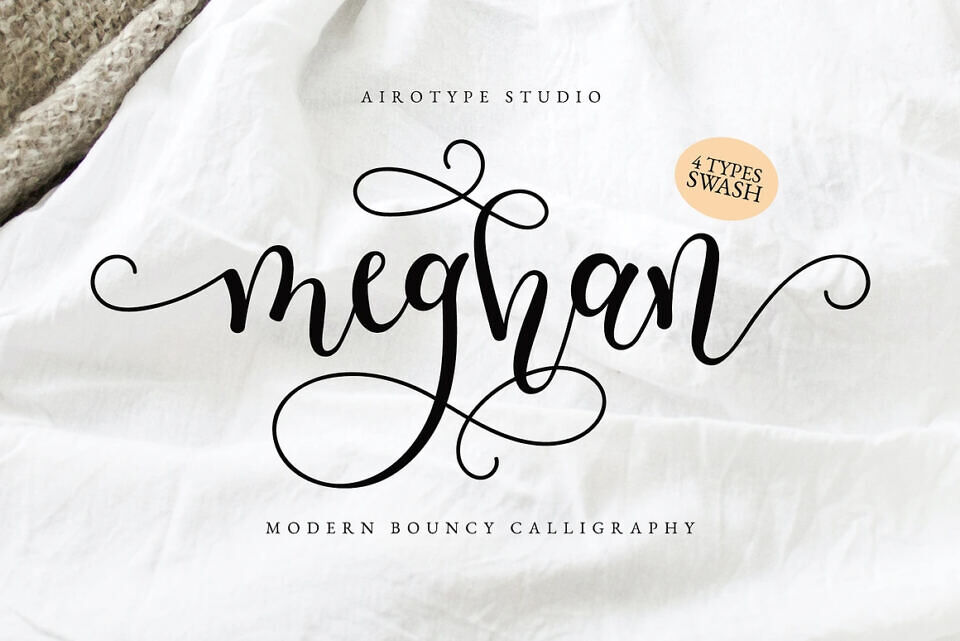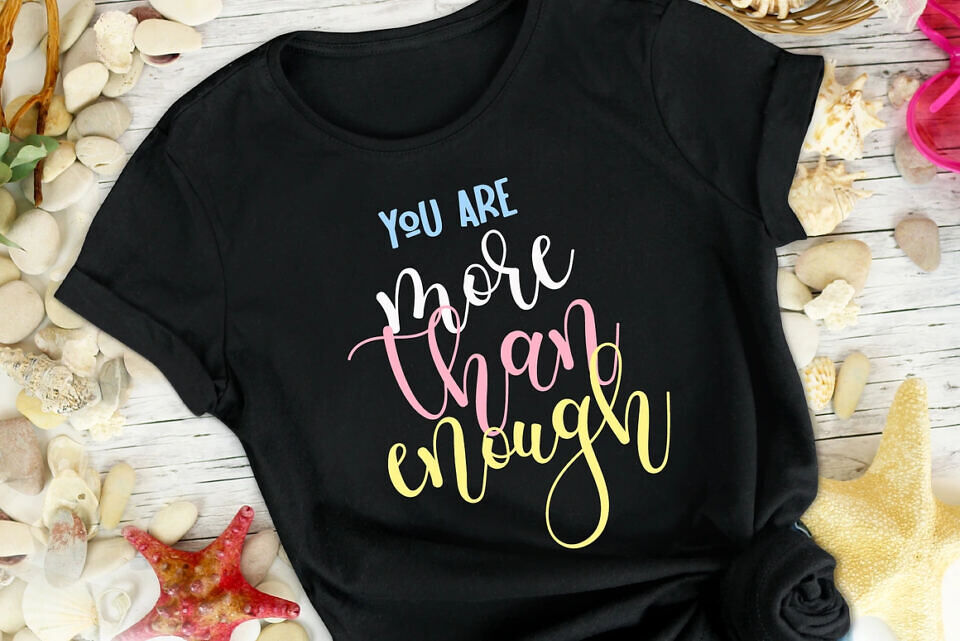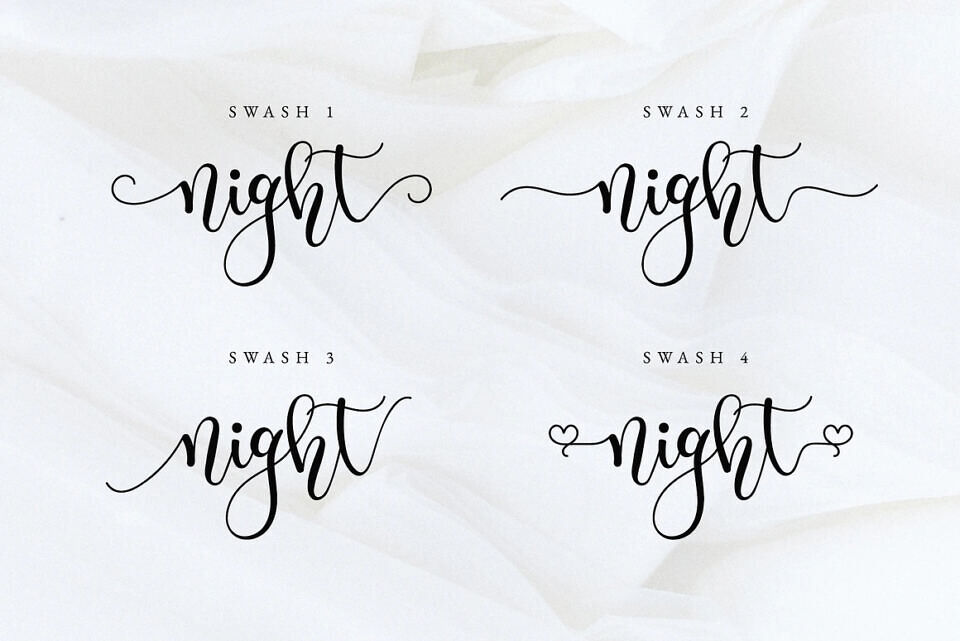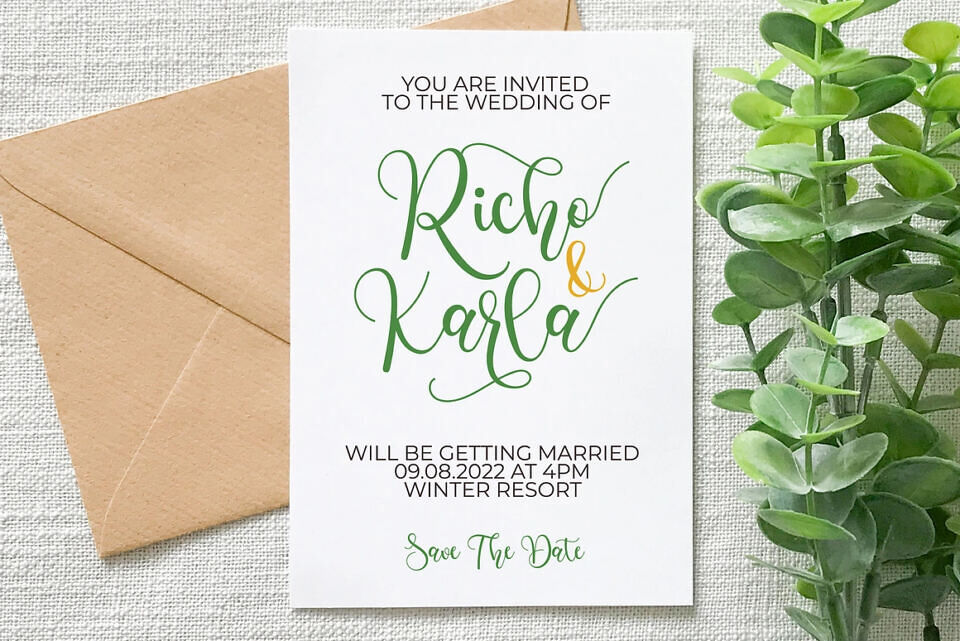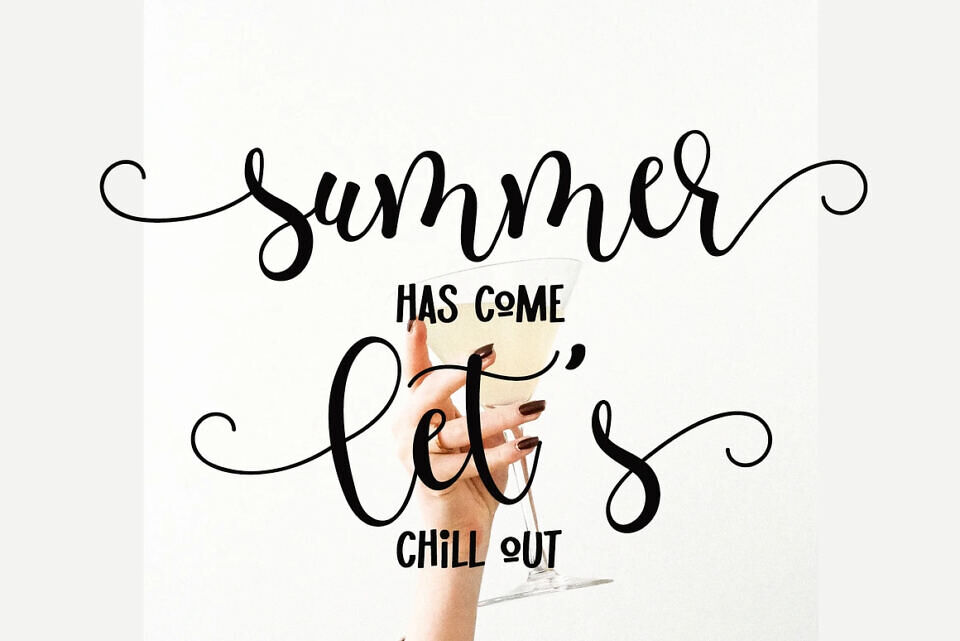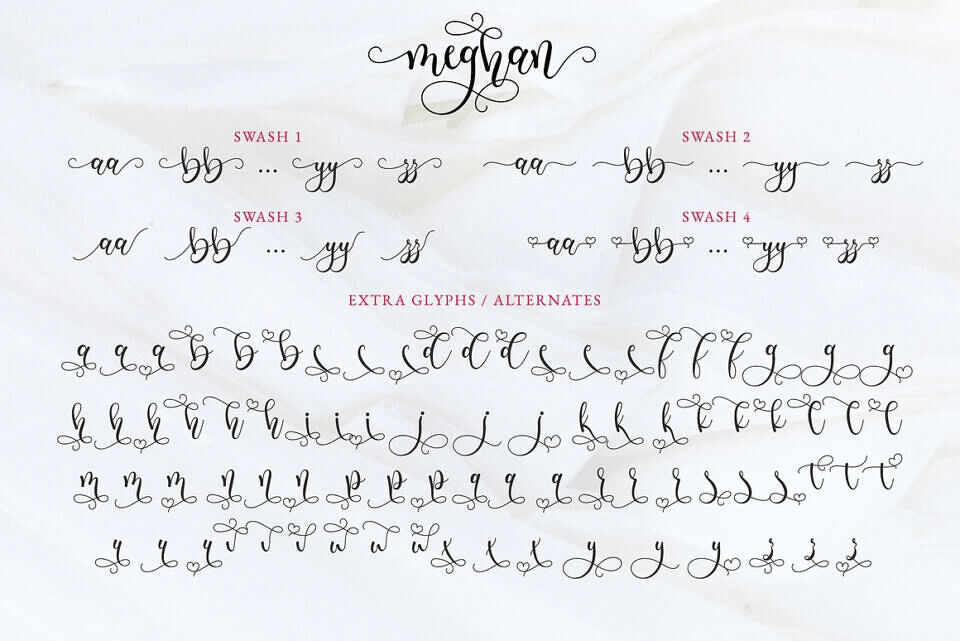
Meghan is bouncy script font. It has elegance and fun vibes in the same time. Meghan has 4 swashes for lowercase. So, it gives lots of choices for crafting and designing.
Meghan is perfect font for any projects, such as wedding invitation, birthday, t-shirt design, crafting, sticker, sublimation, and many more.